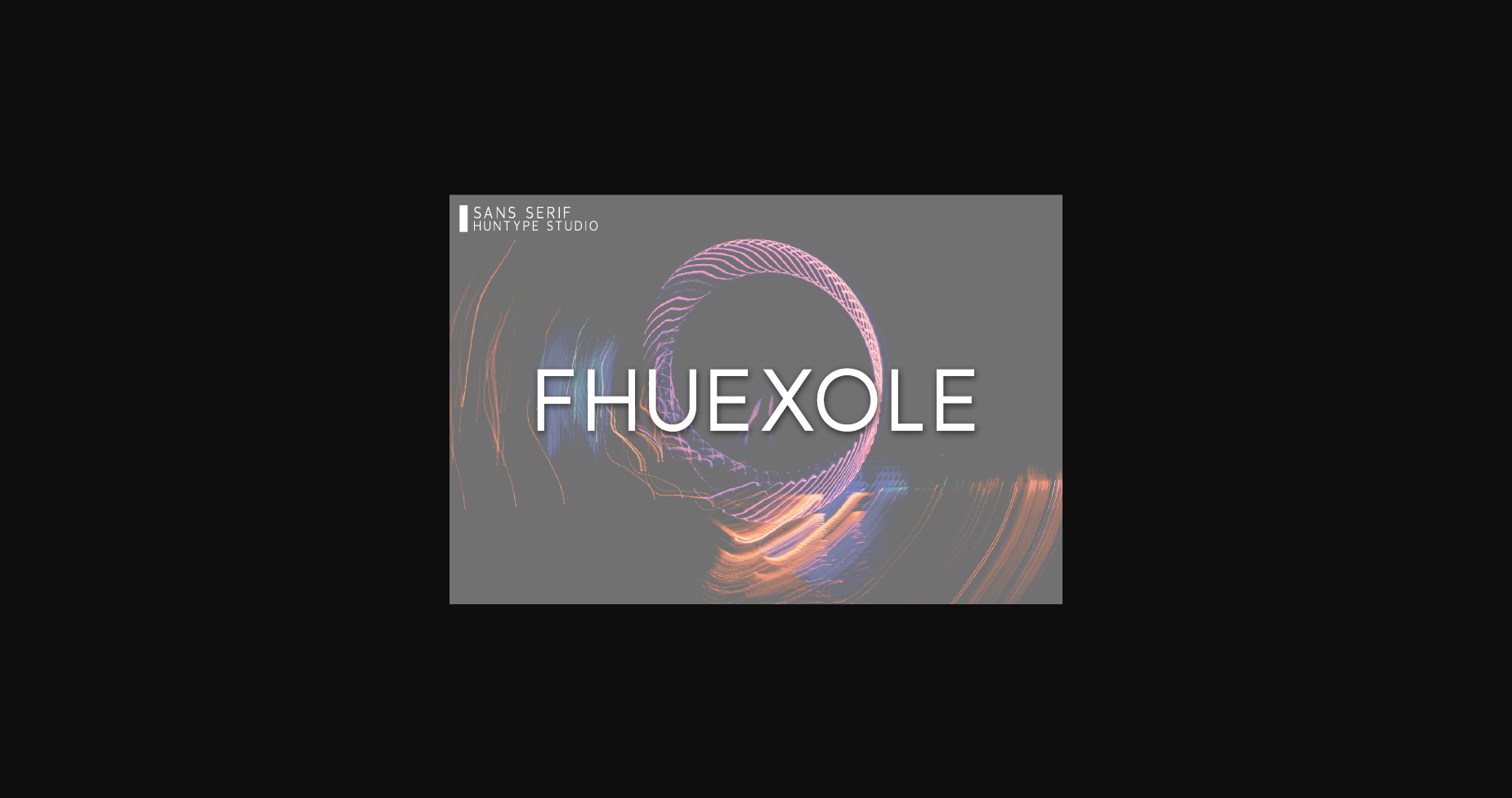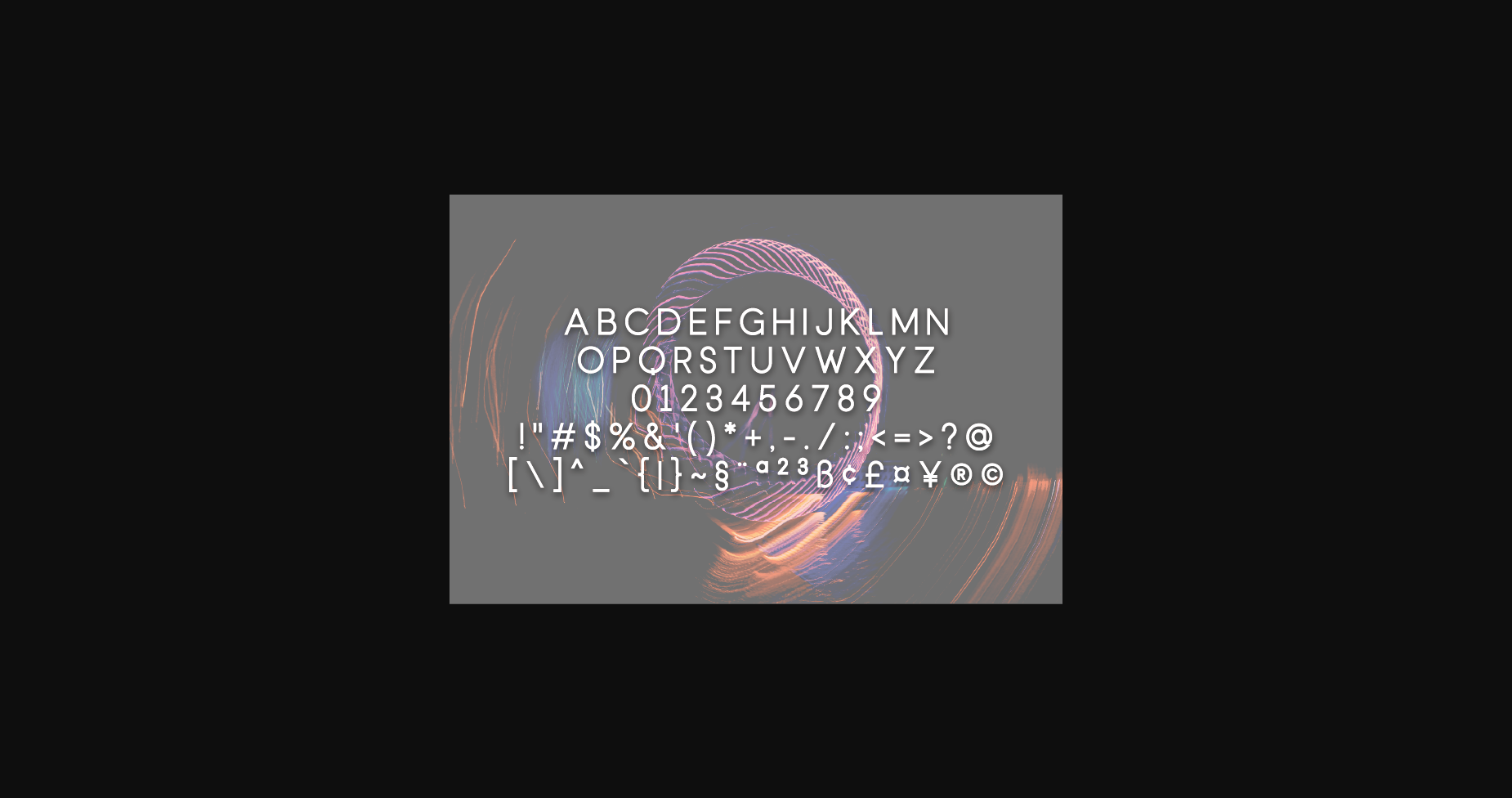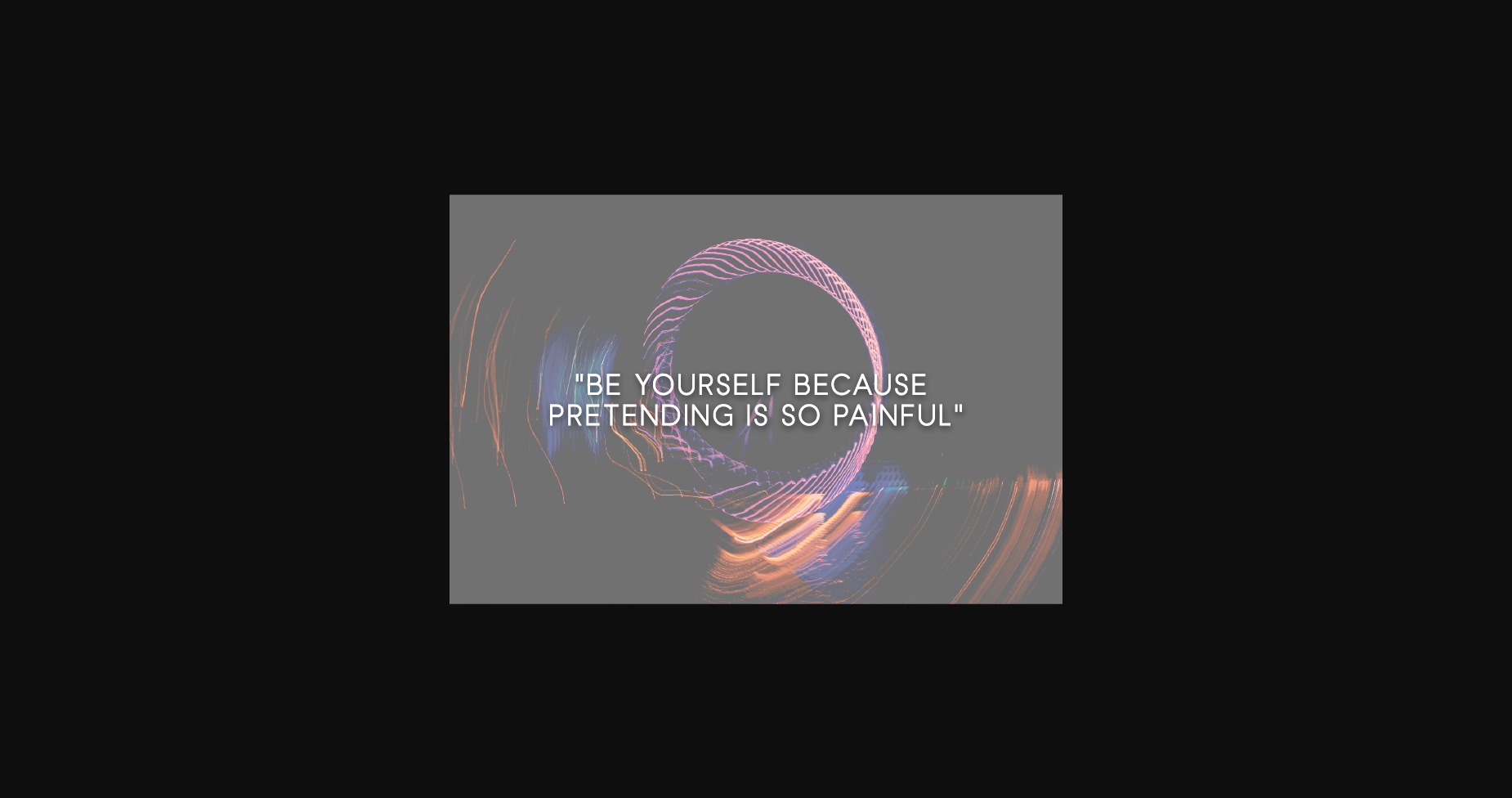
Fhuexole is a minimal and neat sans serif font. It can easily be matched to an incredibly large set of projects, so add it to your creative ideas and notice how it makes them stand out!